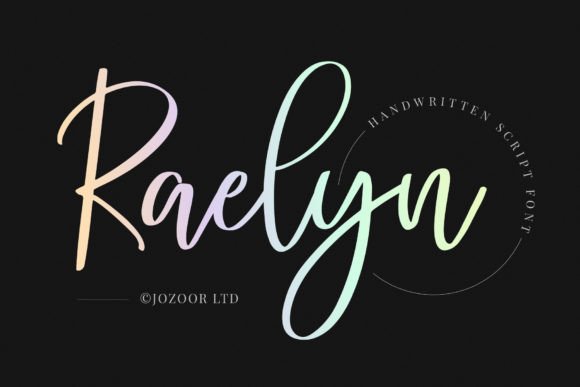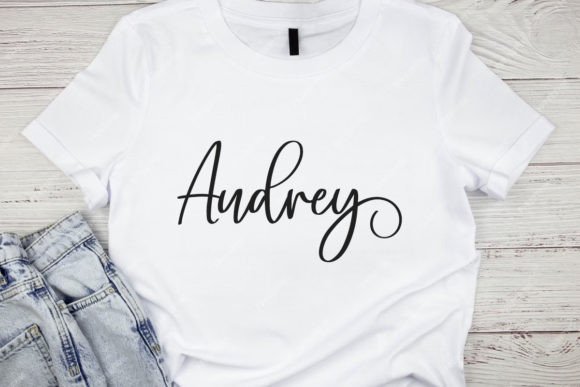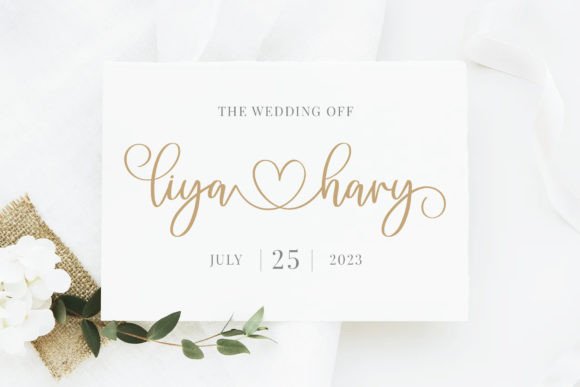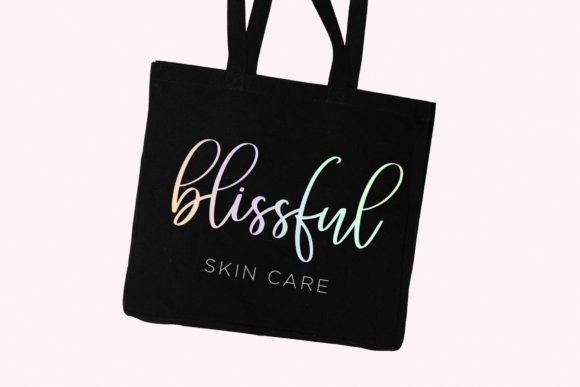
Raelyn Font: Elegant Calligraphy Script for Wedding Invitations & Branding
About the Raelyn Font
Meet Raelyn Font, a stunning font that brings a touch of elegance and professionalism to any design. Raelyn is a romantic and sweet calligraphy typeface with characters that dance along the baseline. It will add a luxury spark to any design project that you wish to create! This font is PUA encoded which means you can access all of the amazing glyphs and ligatures with ease!
Raelyn’s elegant, flowing forms make it ideal for projects requiring a touch of luxury and romance. It excels in headlines, short text blocks on invitations or branding materials, and as an accent font in packaging design. However, its decorative nature makes it unsuitable for body text or UI elements where readability is paramount; long passages set in Raelyn would be difficult to read.
Consider pairing Raelyn with a clean sans-serif like Montserrat for a balanced contrast, or a classic serif such as Garamond for a more traditional feel. A geometric sans-serif like Futura could also create a striking juxtaposition, offering a modern counterpoint to Raelyn’s script-like charm.
Raelyn’s overall personality is sophisticated and romantic, lending itself well to brands focused on beauty, fashion, or high-end products. Its delicate yet distinct forms convey a sense of refined femininity and upscale appeal.